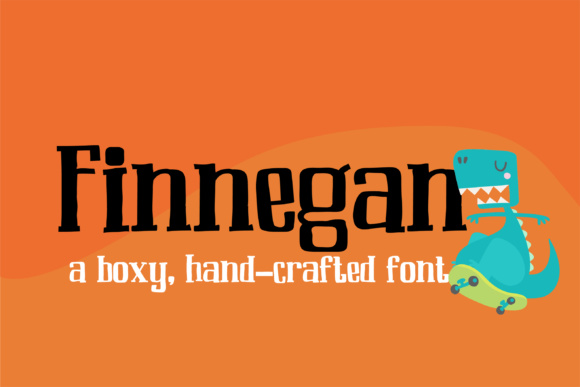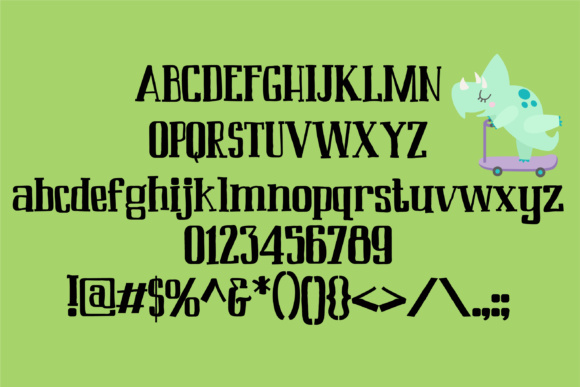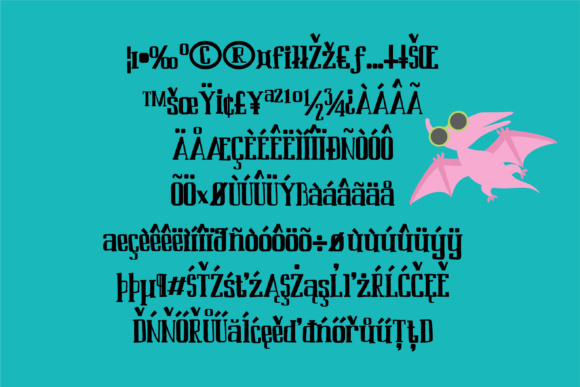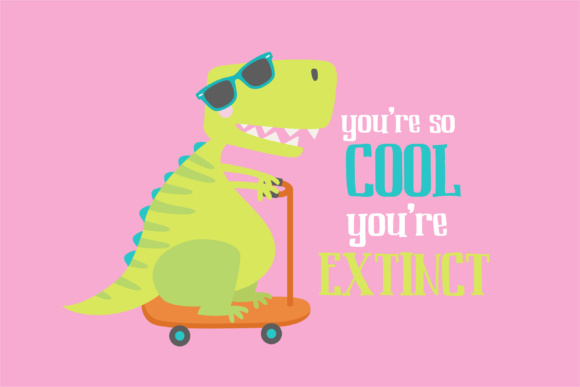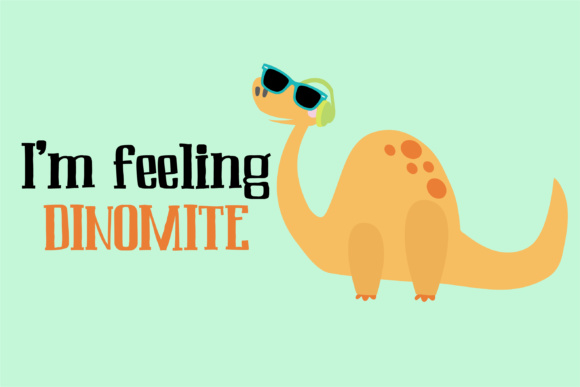
HomeScript FontsFinnegan Font Script Fonts Finnegan Font FacebookXPinterestWhatsApp Finnegan Font Poster 2 Finnegan Font Poster 3 Finnegan Font Poster 4 Finnegan Font Poster 5 About Finnegan Font Finnegan is a hand-crafted font with a boxy feel to it and a bit of a rough edge. DOWNLOAD ON CREATIVE FABRICAThis font is sold and delivered by Creative Fabrica. Font Canyon may earn a commission if you buy through this link. People also explored Karenina Handwriting Font Bouncy Bunny Font Mangoks Font Ruang Jenuh Font Sweet Angel Font Creative Store Font Malbert Typnic Headline Family Font Backpacker Font 312 0 TagsFinnegan Font Previous articleSaarah FontNext articleRestario Font LEAVE A REPLY Cancel reply Comment: Please enter your comment! Name:* Please enter your name here Email:* You have entered an incorrect email address! Please enter your email address here Website: Save my name, email, and website in this browser for the next time I comment. Personal Use Free Whitelight Personal Use Free Read more about this font Angelika Playful Personal Use Free Read more about this font Dream Personal Use Free Read more about this font Token No 721 Personal Use Free Read more about this font BLOG The 10 Best Handwriting Fonts to Add Personality to Your Designs 10 of the Best Handwriting Fonts for Adding Personality to Your Designs There will undoubtedly be no other better choice than handwriting fonts to give... To increase your work productivity, choose the most readable fonts. How to Cut Any Font on Cricut: Convert a Font to SVG (Free) Exploring Font Trends